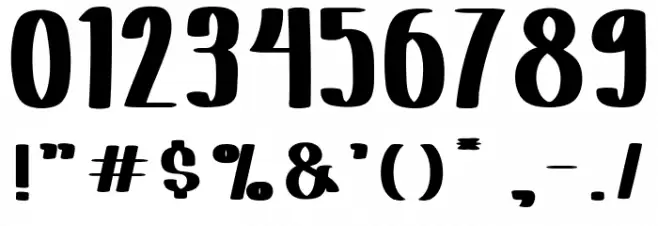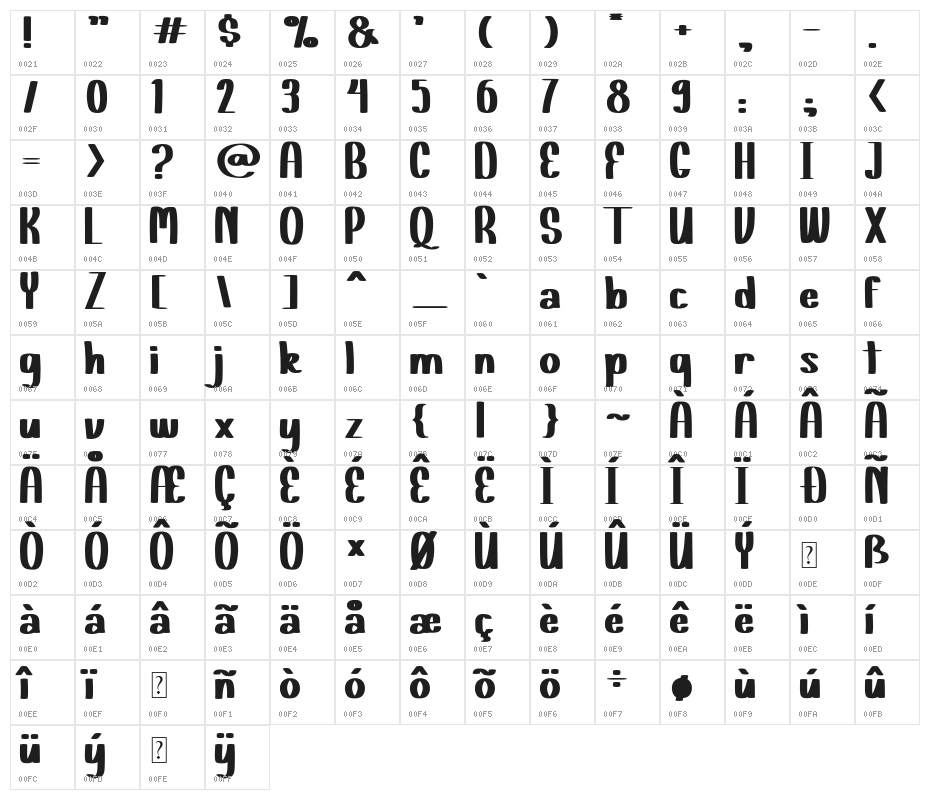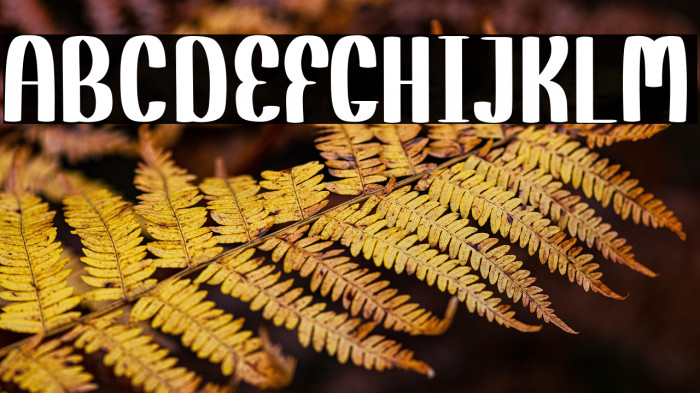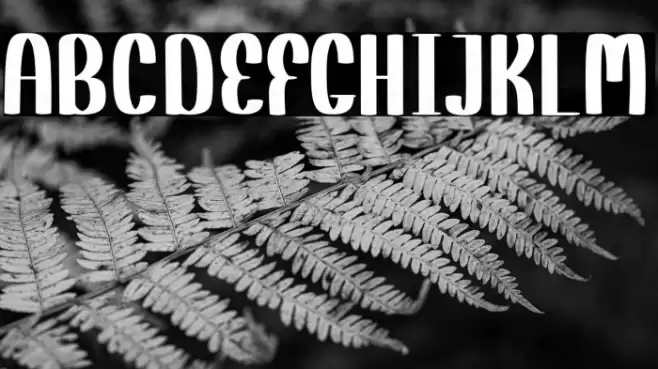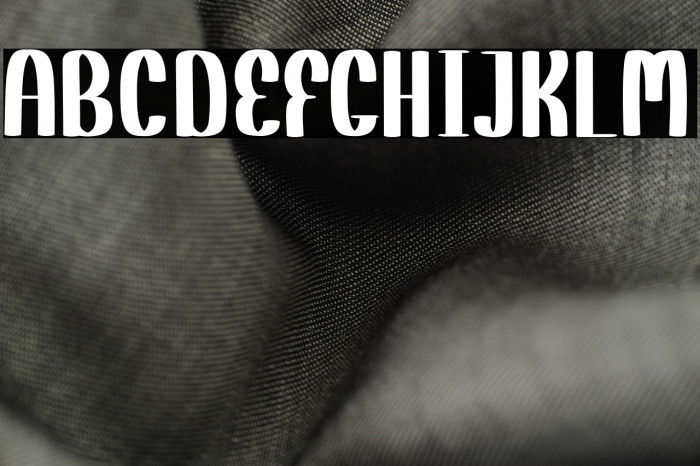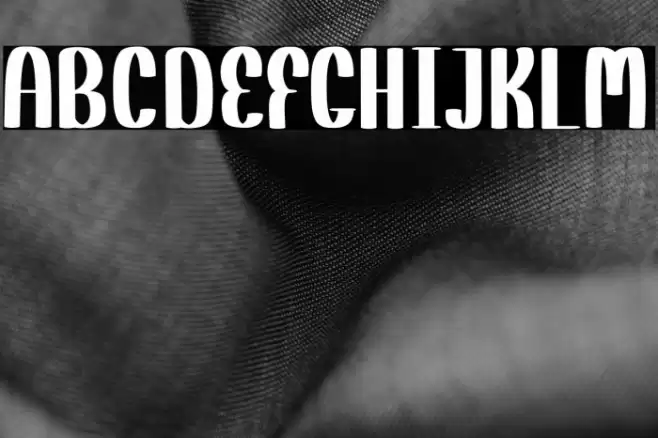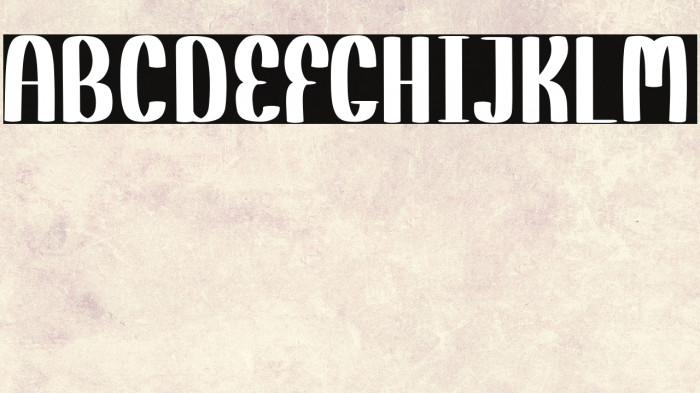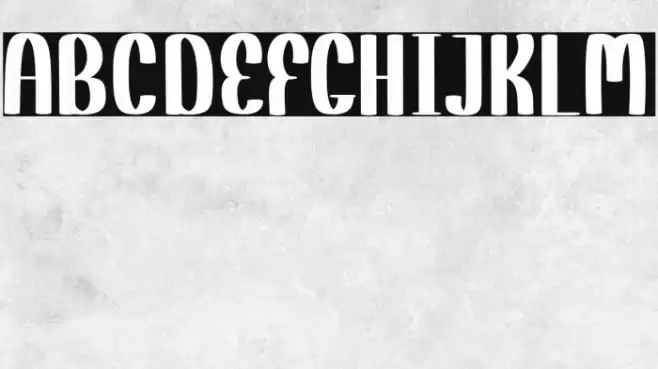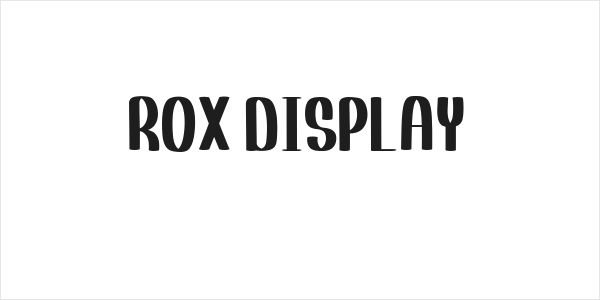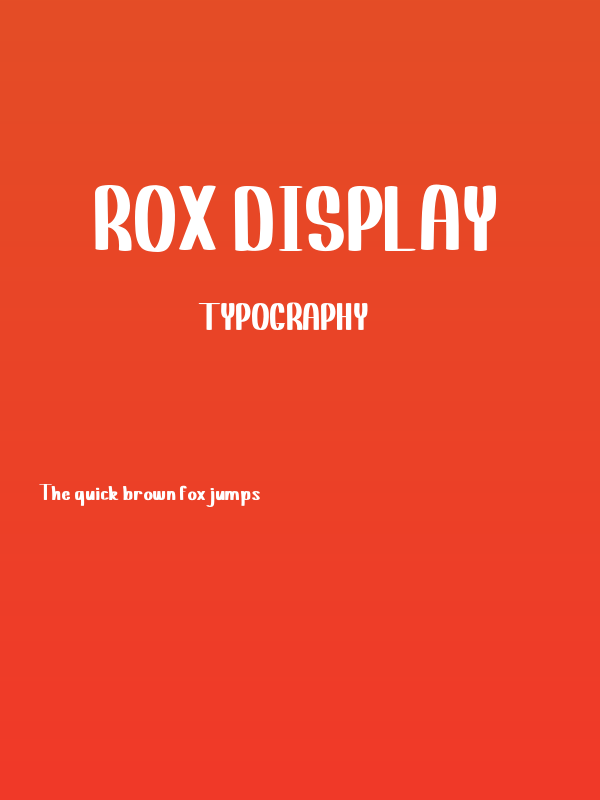
ROX DISPLAY Font
ROX DISPLAY Description
This font features a bold and playful design with a distinctively rounded and slightly condensed appearance. The uppercase letters are tall and narrow, with a whimsical flair that adds a sense of fun and creativity. The lowercase letters maintain a consistent style, offering a smooth and cohesive look. The numbers are bold and easy to read, complementing the overall aesthetic. Special characters are well-integrated, enhancing the font's versatility. This font's unique style makes it suitable for eye-catching designs and creative projects.
| Overall Style | Playful, Creative |
| Proposed Projects | Ideal for posters, children's books, branding, and playful graphic designs. |